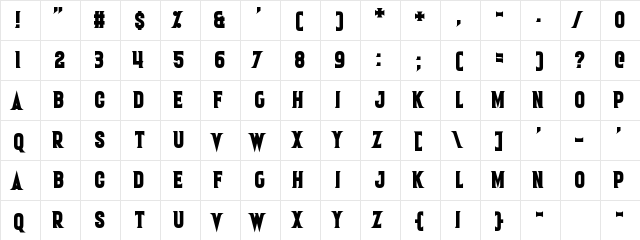
One Slice Regular
| Designer | Allison JJ |
Design Context for One Slice Typeface
One Slice takes a measured approach to typography — its balanced proportions and neutral character make it a reliable workhorse for both digital and print work.